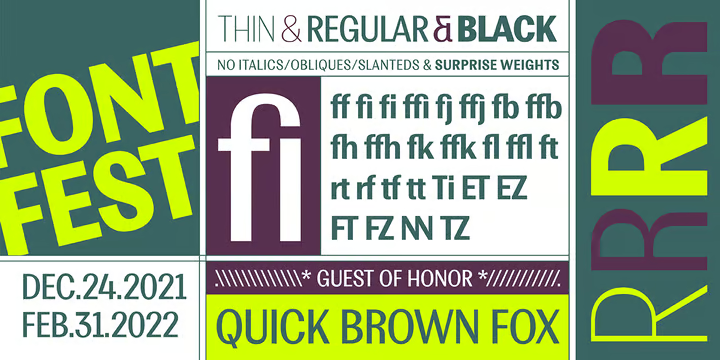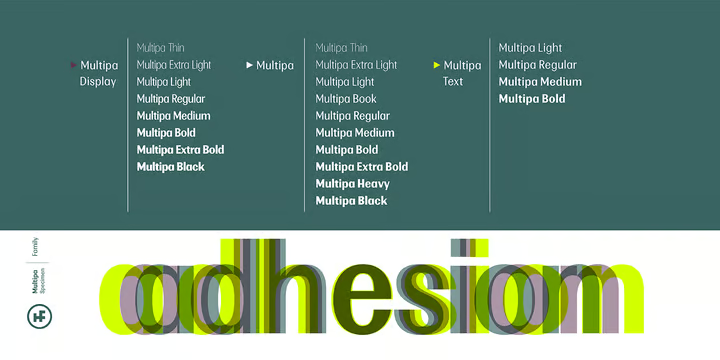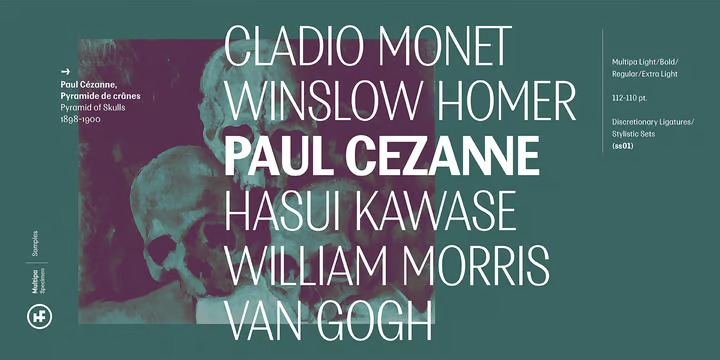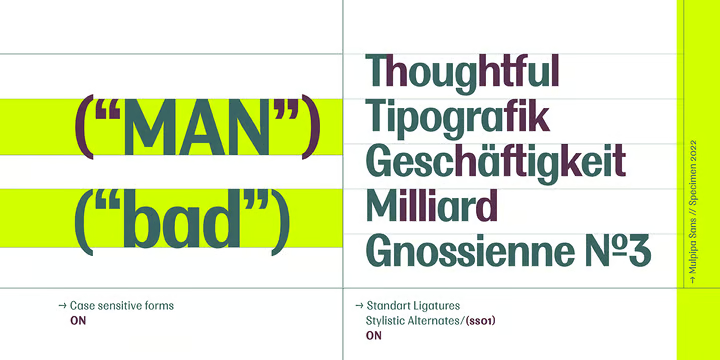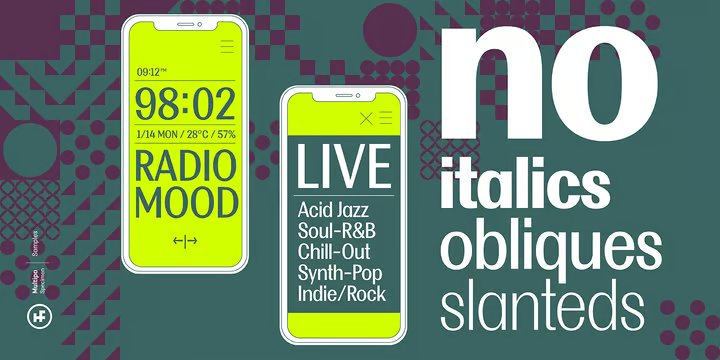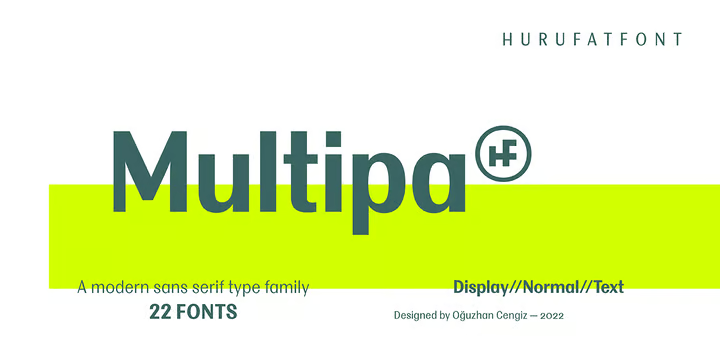
Multipa Font Family
Multipa takes inspiration from old-style grotesque fonts and reinterprets them for the present. Its contrast structure distinguishes it from other sans serif fonts.
Thanks to style sets, letters like t, b, d, k, l are synchronized with capitalization height. It allows you to create powerful typographic designs with body text and heading styles. It is equipped with rich opentype features, style sets and ligatures for professional typography designs.
Ideal for packaging, labels, routing designs, mobile applications, brand designs, logos, all kinds of presentation and editorial designs, indoor and outdoor printing works.
Where Multipa Font Family works best
Multipa Font Family stays legible at small sizes, which makes it a strong choice for navigation, buttons and dashboards in web design and app interfaces.
Clean sans serifs like Multipa Font Family are the default language of SaaS, fintech and product branding.